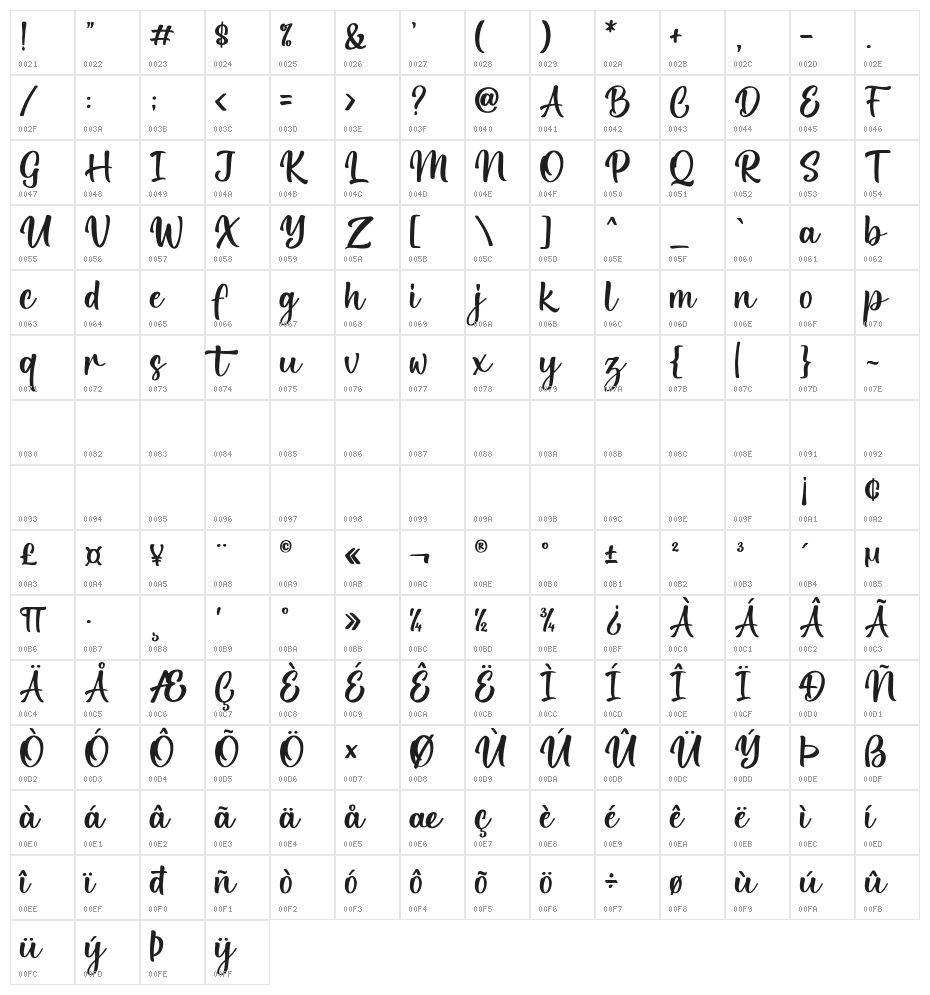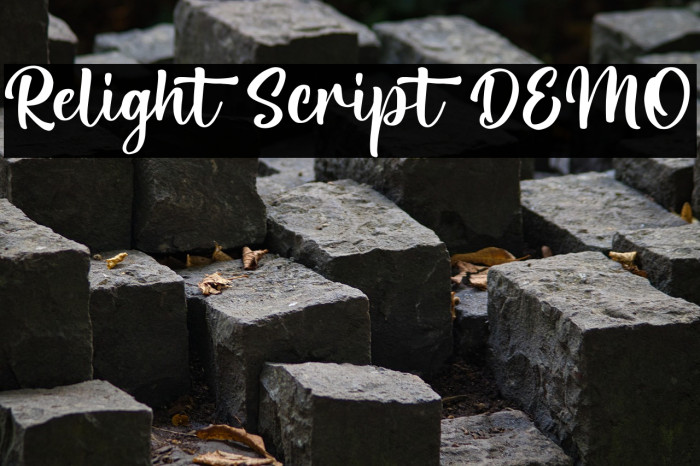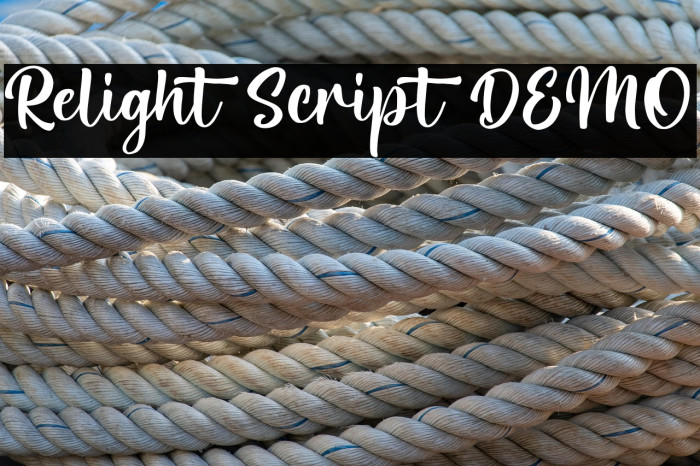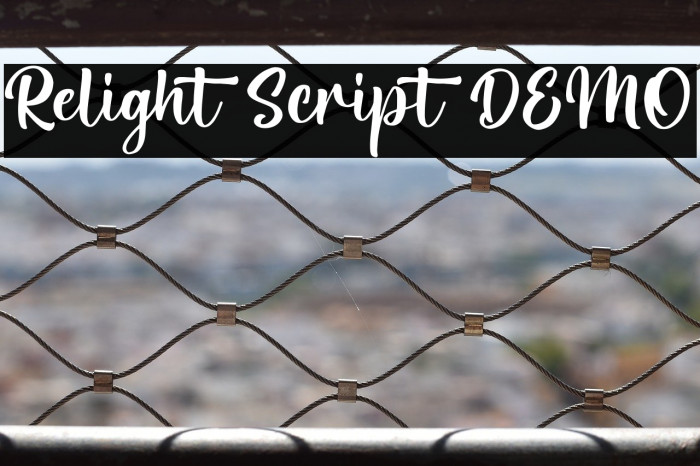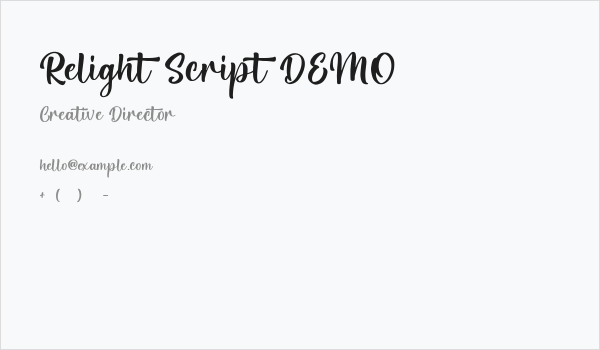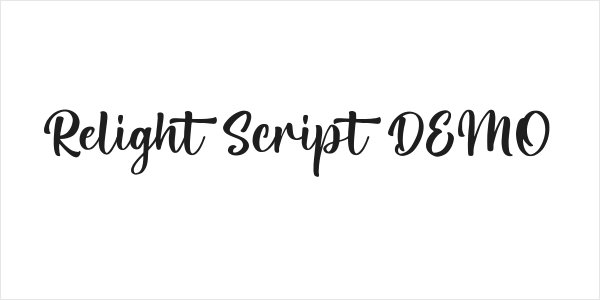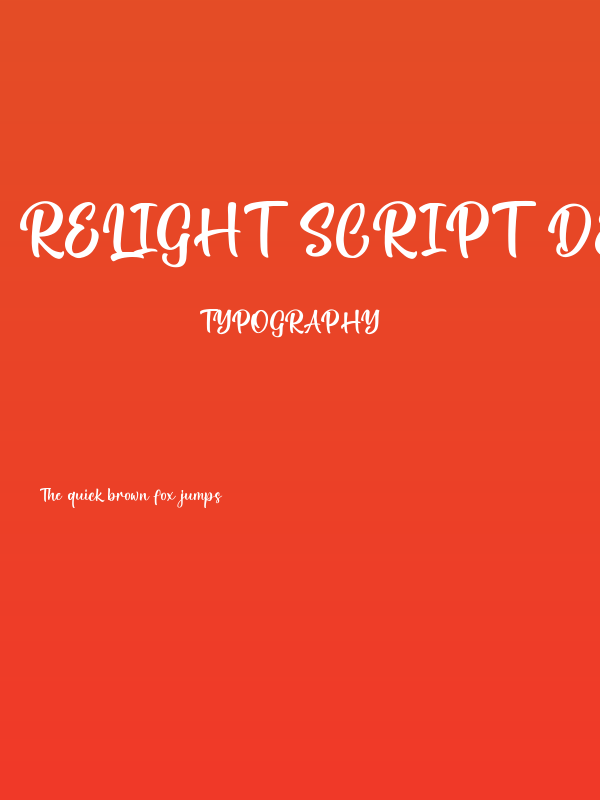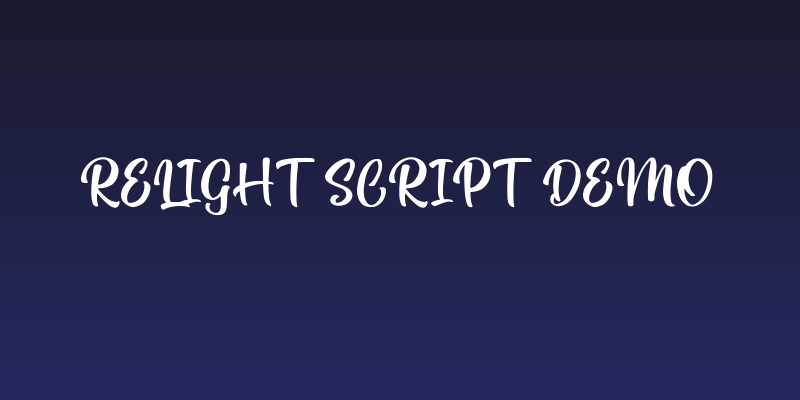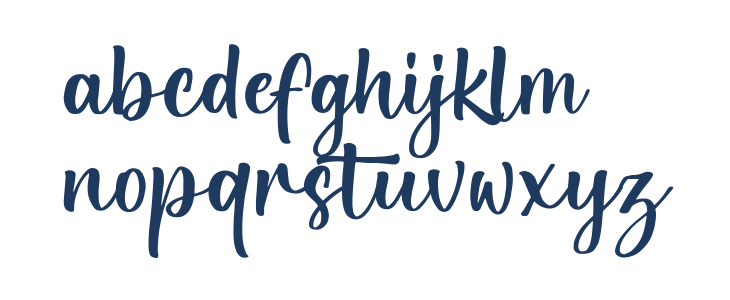
Relight Script DEMO Font
Relight Script DEMO Description
This font features a bold and expressive script style, characterized by its flowing and connected letterforms. The uppercase letters are elegantly designed with a consistent stroke width, while the lowercase letters exhibit a playful and dynamic appearance. The font maintains a sense of rhythm and movement, making it suitable for creative and artistic projects. The numerals and special characters complement the overall design, adding versatility to its use. Its handwritten aesthetic is both modern and timeless, offering a unique blend of sophistication and casual flair.
| Use Case | Logos, Headlines, Invitations |
| Proposed Projects | Ideal for branding, invitations, greeting cards, and artistic designs. |